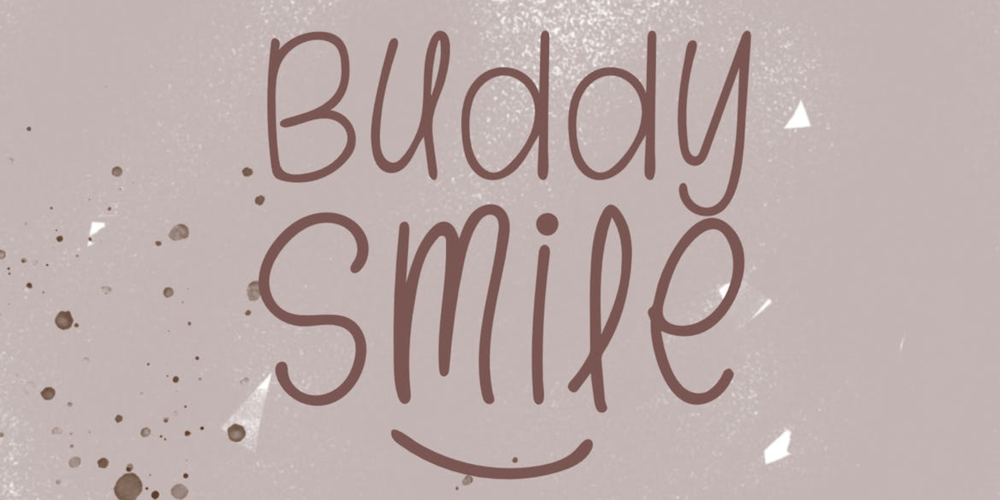
Buddy Smile Font Family was designed by Irpan Maulana and published by Create Big Supply. Buddy Smile contains 1 styles and family package options. Introducing Buddy Smile, a unique handwritten font that adds a splash of color, cheerfulness, and playfulness to your designs. With its charming and lively style, this font is perfect for enhancing your brand identity, book covers, children’s events, quotes, and more.Buddy Smile brings a touch of personality to your projects with its combination of uppercase and lowercase letters. The fluid and organic strokes create a friendly and approachable feel, making your text feel warm and inviting. Whether you’re designing a logo or crafting a heartfelt message, this font will leave a lasting impression.With its extensive language support, Buddy Smile ensures that your message can reach a diverse audience. Express yourself in different languages and connect with people from around the world. The font also includes numbers and punctuation marks, allowing you to maintain consistency throughout your designs.Experience the convenience of PUA (Private Use Area) Encoding, which provides access to special characters and glyphs. Customize your typography and add extra flair to your compositions, making them truly one-of-a-kind.